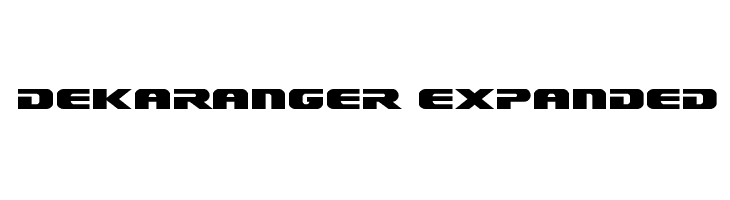
A modern, geometric sans-serif font with consistent stroke widths.
A modern, geometric sans-serif font with clean lines and minimalist design.
A bold, 3D geometric font with a futuristic and dynamic style.
A bold, 3D italic font with a futuristic and dynamic style.
A futuristic, geometric outline font with bold, angular lines.
A futuristic, italic, outlined font with sharp angles and geometric shapes.
A bold, futuristic font with a chrome-like, three-dimensional appearance.
A futuristic, italic font with a chrome-like, three-dimensional outline.
A bold, futuristic font with a condensed, geometric design.
A bold, condensed, and italicized font with a futuristic and dynamic style.